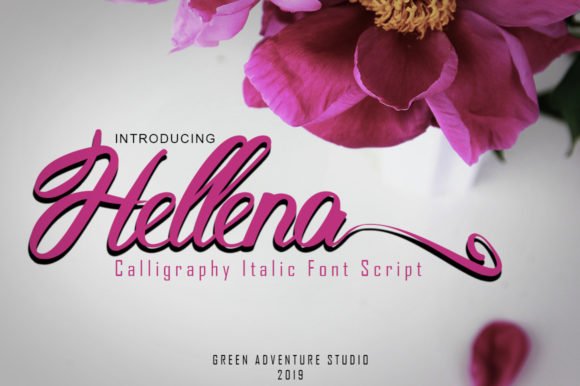
Discover the Sweet Side of Design with Hellena Font
Have you ever been inspired by a beautiful handwritten note or a sweet treat from a local bakery? For designers, those moments can spark a creative journey that leads to something truly special. As we continue to push the boundaries of typography and design, we’re excited to introduce Hellena Font – a modern script font that celebrates the sweeter things in life.
Designed to evoke feelings of warmth and elegance, Hellena Font is perfect for designers looking to add a touch of sophistication to their projects. Whether you’re working on a wedding invitation, a food blog, or a children’s book, this versatile font is sure to inspire your creativity and help you convey your message with style and charm. With Hellena Font, you can bring a smile to your audience’s faces and make a lasting impression.
Hellena Font Key Features
- Font Family: Hellena Font
- Font Styles: Available in various styles, including regular, italic, bold, and bold italic.
- Size: Supports font sizes ranging from 8 to 72 points.
- Resolution: Optimized for use at high resolutions, including 300 DPI and 600 DPI.
- Unique Characteristics: Hellena Font features a unique blend of elegant and modern design elements, with intricate details and ornate flourishes.
Designer Review: Hellena Font
Overall, I think the Hellena Font is a decent addition to any designer’s toolkit, but it has its limitations. ✨ One thing that stands out is the elegant, cursive script that gives it a touch of sophistication. It’s perfect for creating beautiful, handwritten-style titles and headings.
However, there are some ⚠️ limitations to consider. The font can be quite difficult to read in smaller sizes, and the lines can become quite irregular, which can be distracting. Additionally, the font doesn’t come in a wide range of weights, which can limit its versatility in certain designs.
Pros and Cons:
- ✨ Elegant, cursive script that’s perfect for titles and headings
- ⚠️ Difficult to read in smaller sizes
- ⚠️ Irregular lines can be distracting
- ⚠️ Limited range of weights
Overall, I would recommend the Hellena Font for projects where you want to add a touch of elegance and sophistication. However, it’s not the best choice for projects that require a lot of text or need a highly readable font.
For the best results, use Hellena Font in a clean and modern design. It pairs well with minimalist backgrounds and simple graphics.
Hellena Font is ideal for:
- Modern and minimalist designs.
- Corporate and professional branding.
- Editorials and publications.
Remember to adjust the font size and style to balance with the other design elements for the best results.
Alternatives to Hellena Font
Montserrat is a modern sans-serif font designed for digital use. It’s ideal for headings and titles where a clean, minimalist look is desired. Montserrat is more geometric and futuristic compared to Hellena Font, which has a more traditional feel. It’s perfect for use in modern web design, logos, and branding materials.
Playfair Display is a luxurious, high-end font perfect for creating a sophisticated and elegant look. It’s ideal for use in magazine titles, book covers, and luxury branding materials. Compared to Hellena Font, Playfair Display has a more ornate and decorative feel, making it perfect for use in high-end designs where a touch of luxury is desired.
Merriweather is a classic serif font designed for use in body text and paragraphs. It’s ideal for use in print materials, such as books, magazines, and newspapers. Compared to Hellena Font, Merriweather has a more traditional and timeless feel, making it perfect for use in designs where a classic, elegant look is desired.
Great Vibes is a beautiful, elegant script font perfect for use in titles, headings, and branding materials. It’s ideal for use in designs where a touch of elegance and sophistication is desired. Compared to Hellena Font, Great Vibes has a more fluid and cursive feel, making it perfect for use in designs where a personal and creative touch is desired.